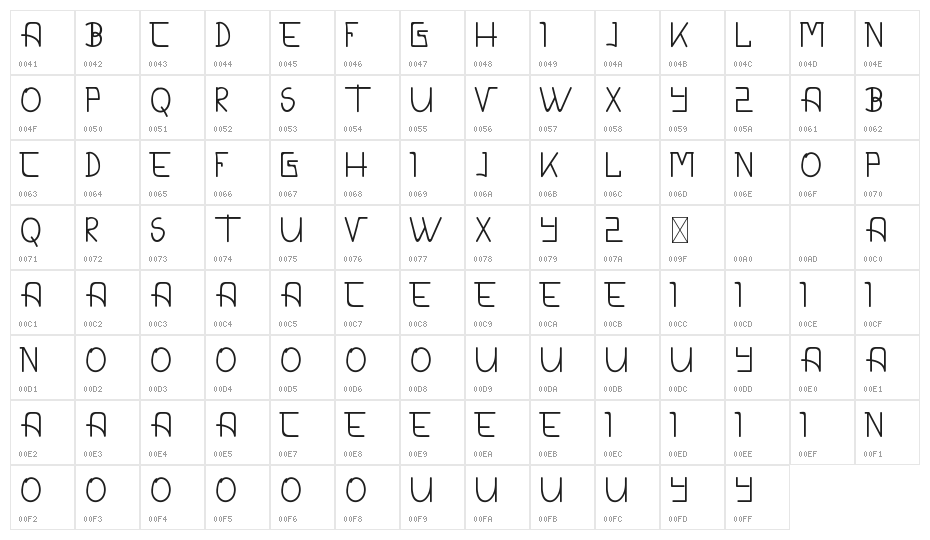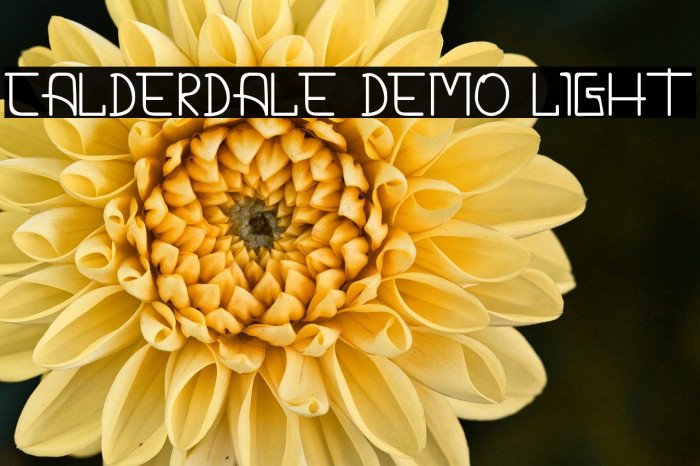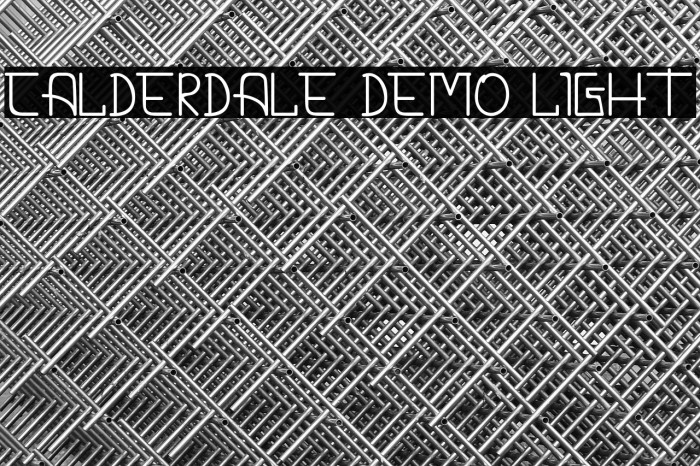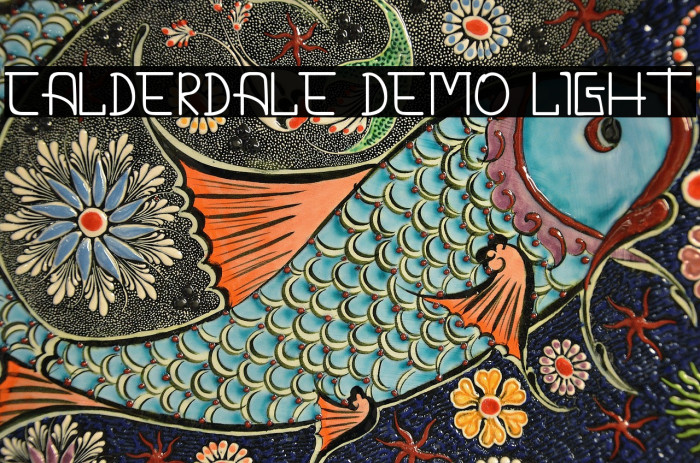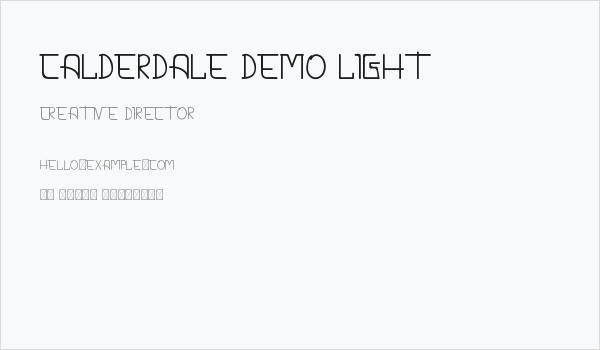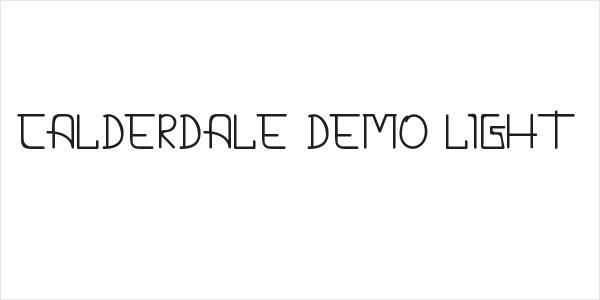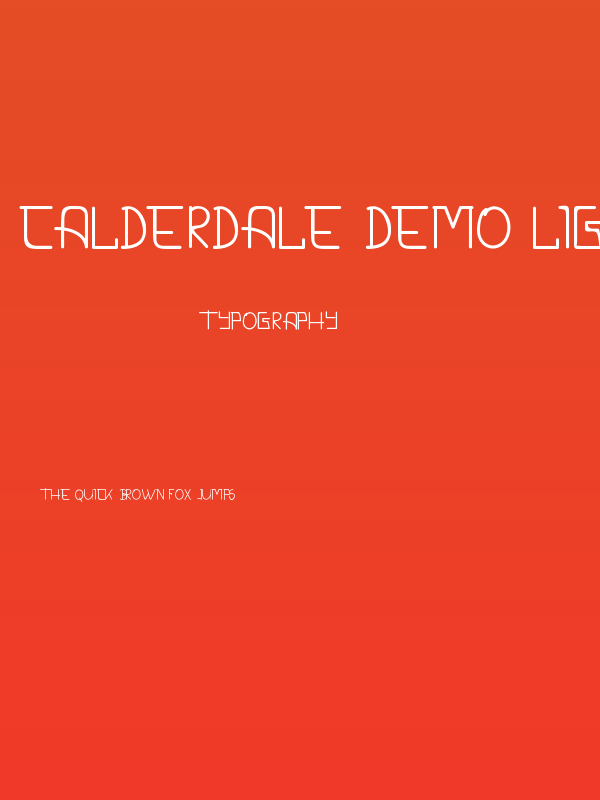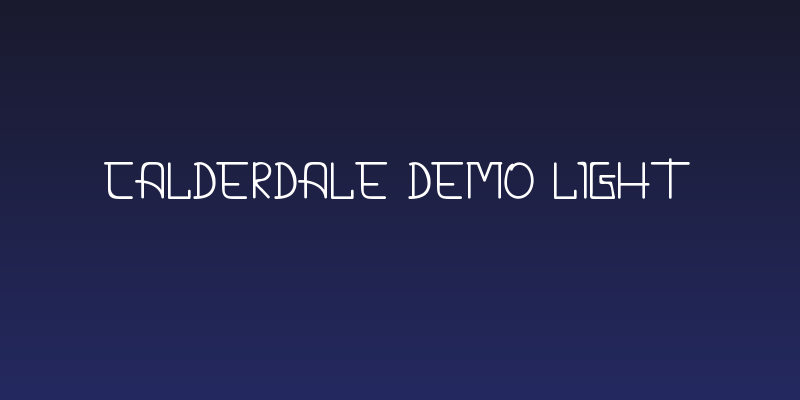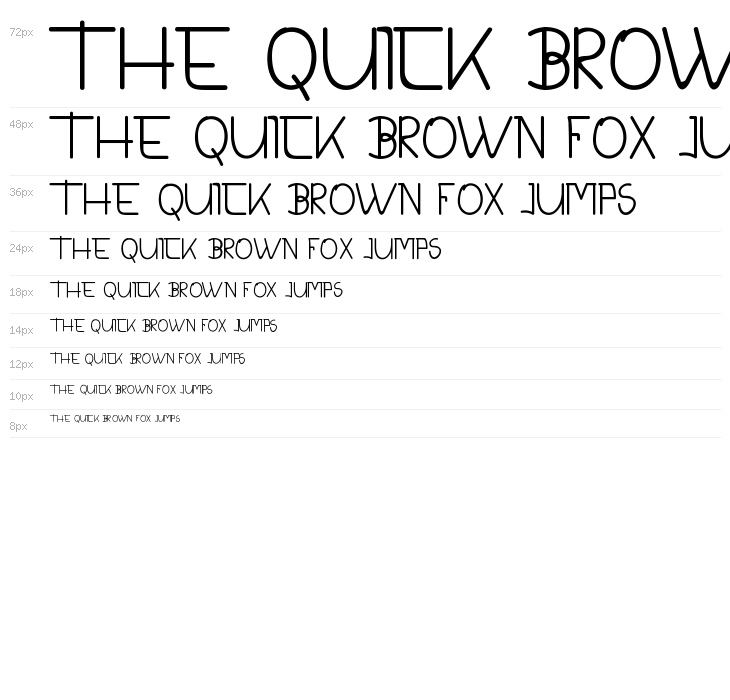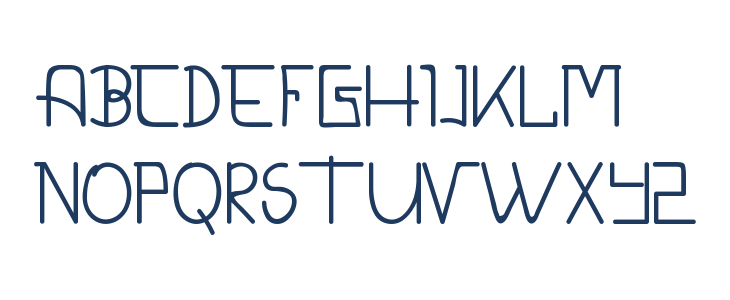
CALDERDALE DEMO Light Font
CALDERDALE DEMO Light Description
This font features a unique and modern design with a geometric and slightly futuristic appearance. The characters are constructed with clean lines and a consistent stroke width, giving it a structured and orderly look. The uppercase letters exhibit a distinctive style with angular and rounded elements, creating a harmonious balance between sharpness and softness. The lowercase letters maintain the same geometric aesthetic, ensuring uniformity across the typeface. The numerals and special characters are designed to match the overall style, making this font versatile for various applications.